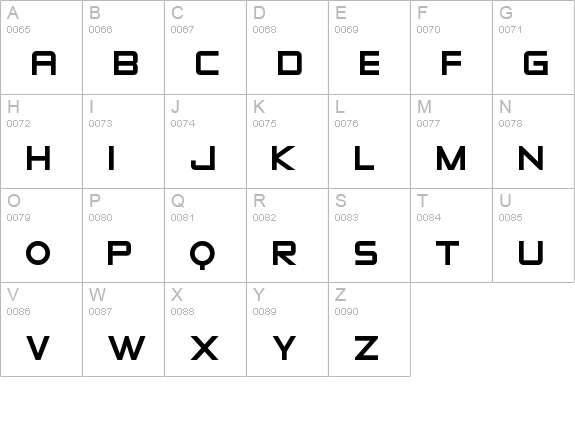
Zeroes One Font Details
Introducing Zeroes One font, a sleek and modern typeface that combines futuristic elements with a touch of elegance. Perfect for creating eye-catching designs that demand attention, Zeroes One features clean lines and sharp edges that give it a distinct and contemporary look. This versatile font is ideal for a variety of projects, from branding and advertising to web design and social media graphics. Its bold and distinctive style is sure to make your text stand out and leave a lasting impression. Best of all, Zeroes One is available for free download at FontsMarket.com, making it easily accessible to all designers and creatives looking to add a touch of sophistication to their work. Don't miss out on this opportunity to elevate your designs with the unique charm of Zeroes One font.